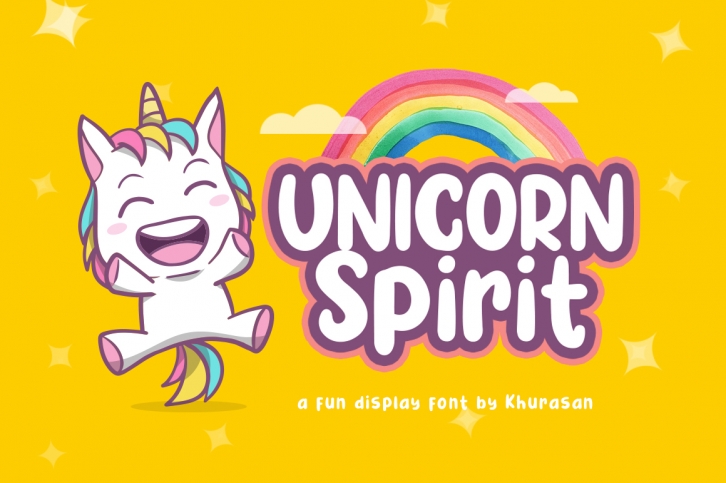
Unicorn Spirit is a gorgeous font that was realeased on November 11, 2019. The font can be used in many style contexts and design environments. Perfect for invitations, magazines, websites, logos, and more! It was designed by khurasan and the file size is 20.63 MB. Thanks for checking out this font!